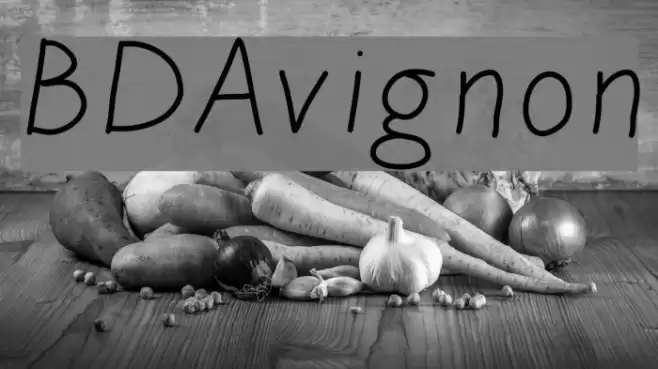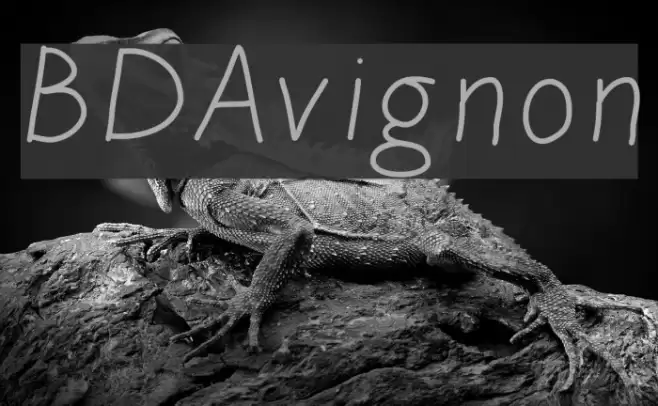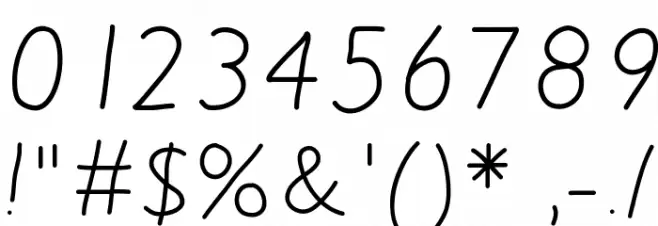
BDAvignon Font
BDAvignon Description
This font features a playful and informal style with a handwritten appearance. The characters are slightly slanted, giving it a casual and approachable feel. The strokes are consistent in width, providing a uniform look across all letters and numbers. The uppercase letters are tall and narrow, while the lowercase letters maintain a smooth, flowing form. The numerals are clear and legible, matching the overall aesthetic of the font. Special characters are included, maintaining the same whimsical style, making it versatile for various uses.
A playful, handwritten-style font with a casual and approachable feel from Handwritten fonts.
- Proposed Projects: Ideal for greeting cards, children's books, casual branding, and social media graphics.
- Overall Style: Casual
- Use Case: Headlines, Informal text, Creative projects